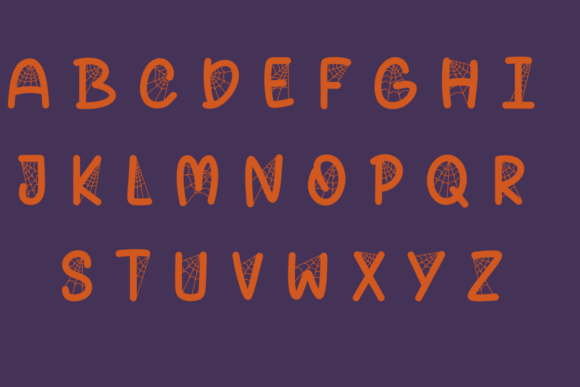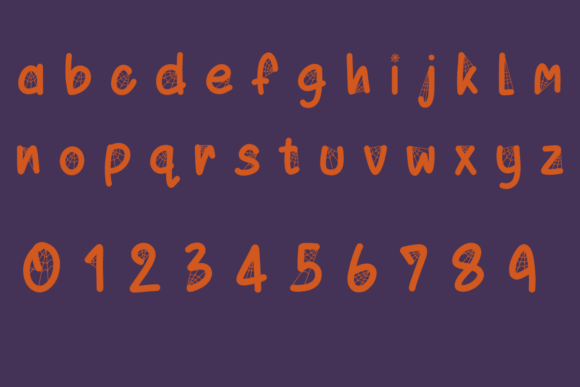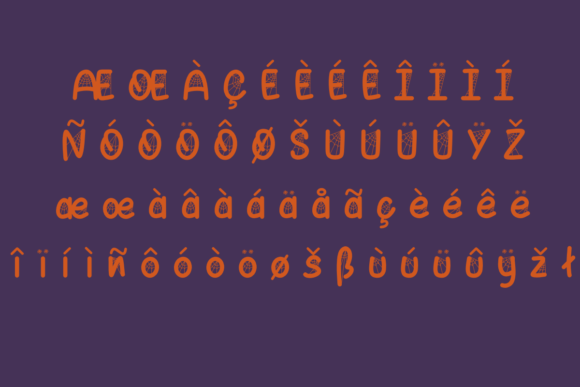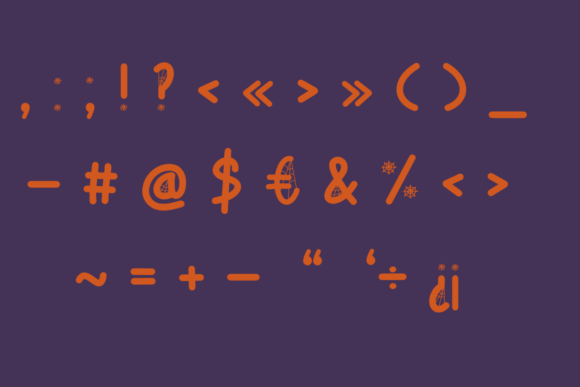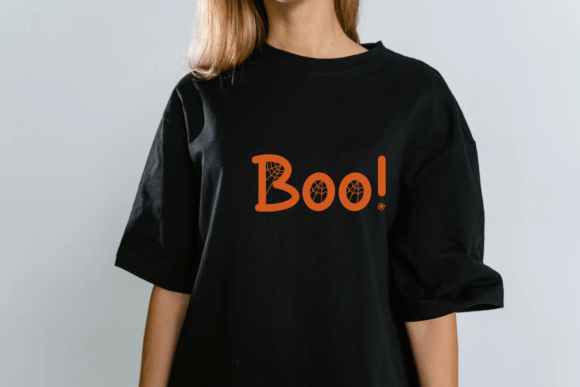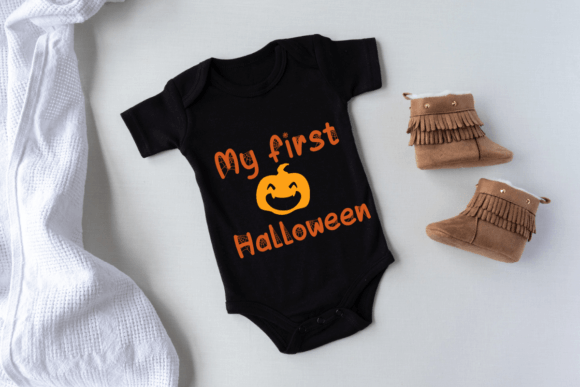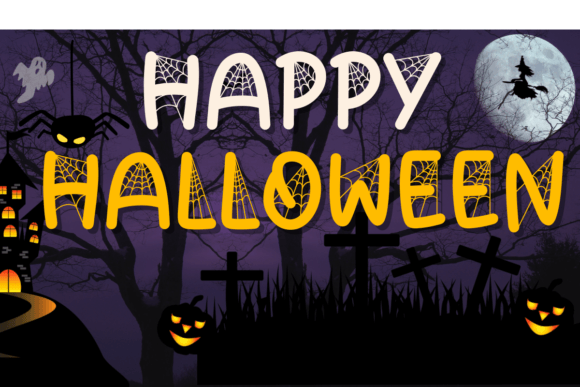
Halloween Font: A Spoctacular Handwritten Font for Your Designs
Are you looking for a font that can add a touch of spookiness and fun to your designs? Look no further than the Halloween Font! This cute handwritten font is perfect for creating spectacular designs that will make your audience scream with excitement. In this article, we’ll dive into the features and benefits of the Halloween Font, and explore the many ways you can use it to create amazing designs.
What is Halloween Font?
Halloween Font is a unique and playful handwritten font that is designed to capture the spirit of Halloween. With its irregular and whimsical strokes, this font is perfect for creating designs that are both fun and spooky. Whether you’re designing party decorations, invitations, posters, or social media posts, the Halloween Font is sure to add a touch of personality and whimsy to your work.
Features of Halloween Font
- Cute and playful design: The Halloween Font has a unique and adorable design that is sure to stand out in any design.
- Handwritten style: The font has a handwritten style that gives it a personal and informal touch.
- Irregular strokes: The font features irregular strokes that add to its whimsical and playful feel.
- Easy to read: Despite its playful design, the Halloween Font is easy to read and understand.
- Versatile: The font can be used for a wide range of design projects, from party decorations to social media posts.
Benefits of Using Halloween Font
So why should you use the Halloween Font in your designs? Here are just a few benefits of using this amazing font:
- Adds a touch of personality: The Halloween Font adds a touch of personality and whimsy to your designs, making them stand out from the crowd.
- Perfect for Halloween designs: As the name suggests, the Halloween Font is perfect for creating designs for Halloween, including party decorations, invitations, and posters.
Ways to Use Halloween Font
So how can you use the Halloween Font in your designs? Here are just a few ideas to get you started:
- Party decorations: Use the Halloween Font to create spooky and fun party decorations, including banners, signs, and centerpieces.
- Invitations: Create invitations for Halloween parties or events using the Halloween Font.
- Posters: Design posters for Halloween events or promotions using the Halloween Font.
- Blogs: Use the Halloween Font to create spooky and fun blog posts or articles about Halloween.
- Clothing and accessories: Design t-shirts, hoodies, and other clothing items using the Halloween Font.
- Cards and gift tags: Create spooky and fun cards and gift tags using the Halloween Font.
- Cloth bags and mugs: Design cloth bags and mugs with the Halloween Font for a unique and personalized gift.
- Social media posts: Use the Halloween Font to create spooky and fun social media posts for Halloween.
Tips for Using Halloween Font
Here are a few tips for using the Halloween Font in your designs:
- Experiment with different colors: Try out different colors and color combinations to add an extra touch of spookiness to your designs.
- Use it with other fonts: Combine the Halloween Font with other fonts to create a unique and interesting design.
- Play with font sizes: Experiment with different font sizes to add emphasis and create visual interest in your designs.
In conclusion, the Halloween Font is a unique and playful handwritten font that is perfect for creating spectacular designs for Halloween and beyond. With its irregular and whimsical strokes, this font is sure to add a touch of personality and whimsy to your designs. Whether you’re a designer or a crafter, the Halloween Font is a great addition to your font collection. So why not give it a try and see what spooky and fun designs you can create?